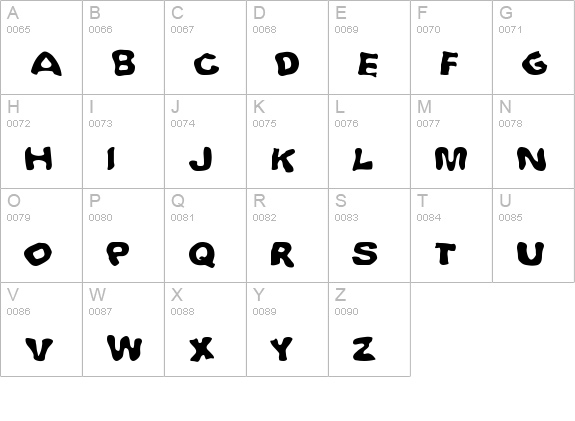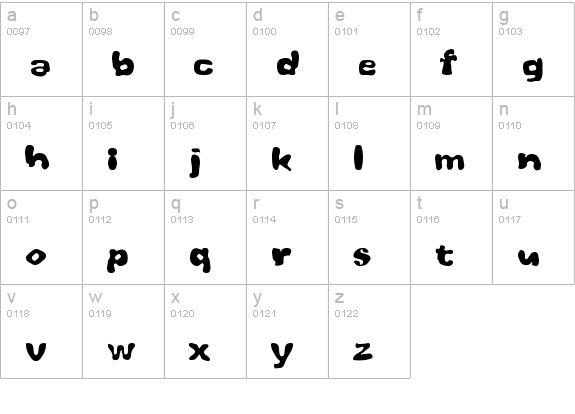
Whoobub Font Details
Introducing Whoobub font, a captivating and versatile typeface that will add a touch of elegance and modernity to any design project. With its unique blend of curvaceous letterforms and stylish lines, Whoobub font effortlessly captures attention and exudes a sense of sophistication. But what makes Whoobub font truly special is that it is available for free! That's right, this incredible font can be yours without spending a dime. It's a perfect opportunity to enhance your creative endeavors without breaking the bank. Whether you're working on a logo design, branding materials, invitations, posters, or any other project, Whoobub font will elevate your creations to new heights. Its carefully crafted details and exquisite letterforms make it suitable for both print and digital applications, ensuring stunning results every time. Downloading Whoobub font is quick and easy. Simply head over to FontsMarket.com, a trusted source for high-quality fonts, and find the Whoobub font page. There, you can freely download this remarkable typeface and start adding a touch of elegance to your designs. Don't miss out on this fantastic opportunity to enhance your projects with a premium-quality font that won't cost you a penny. Get your hands on Whoobub font today and let your creativity soar!